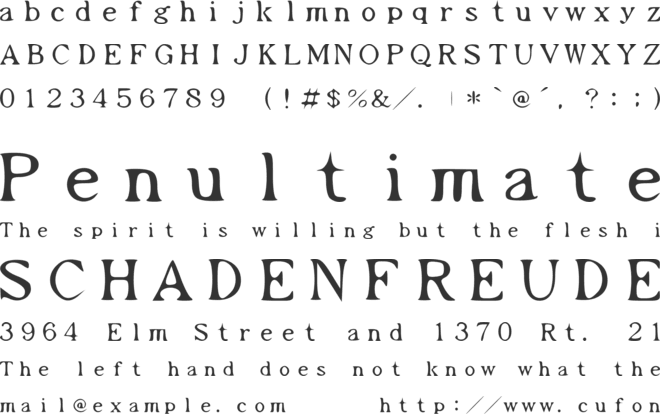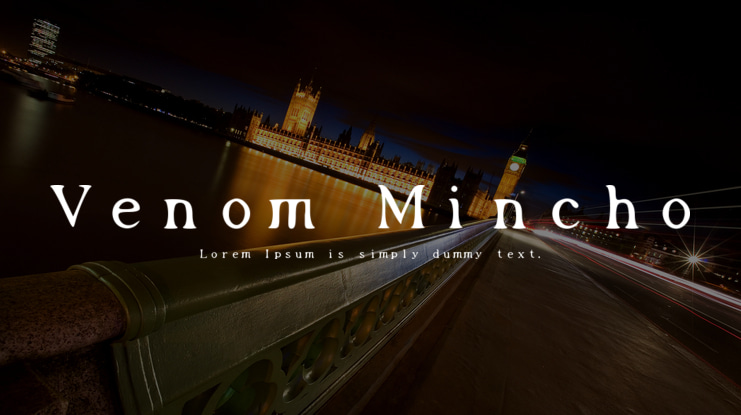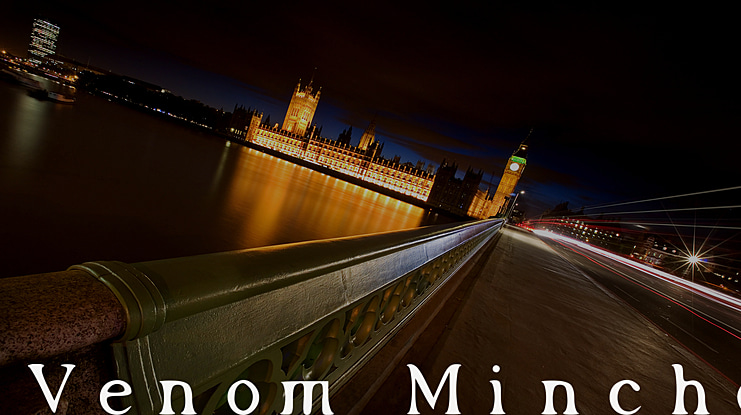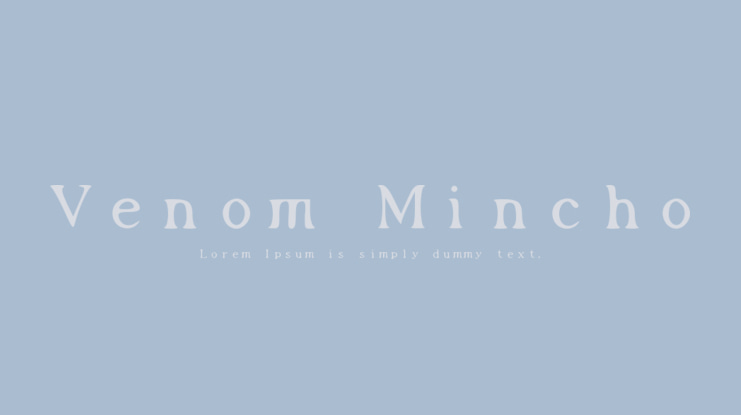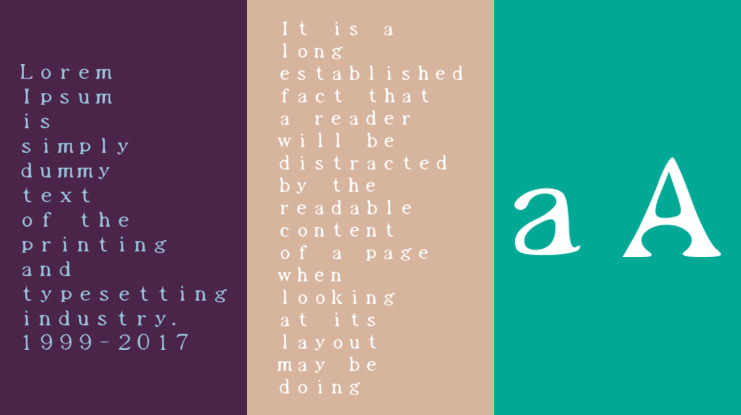
Venom Mincho Font
Venom Mincho is a liquid-like Mincho font based on the Japanese BDF font Kappa20 Mincho. The characters are so creepy, it looks like an old poster that was found in an abandoned building, it was written carefully by the phantom Buddhists, or it had a Demon Book look, resulting this font have had a low readability (to some sort).